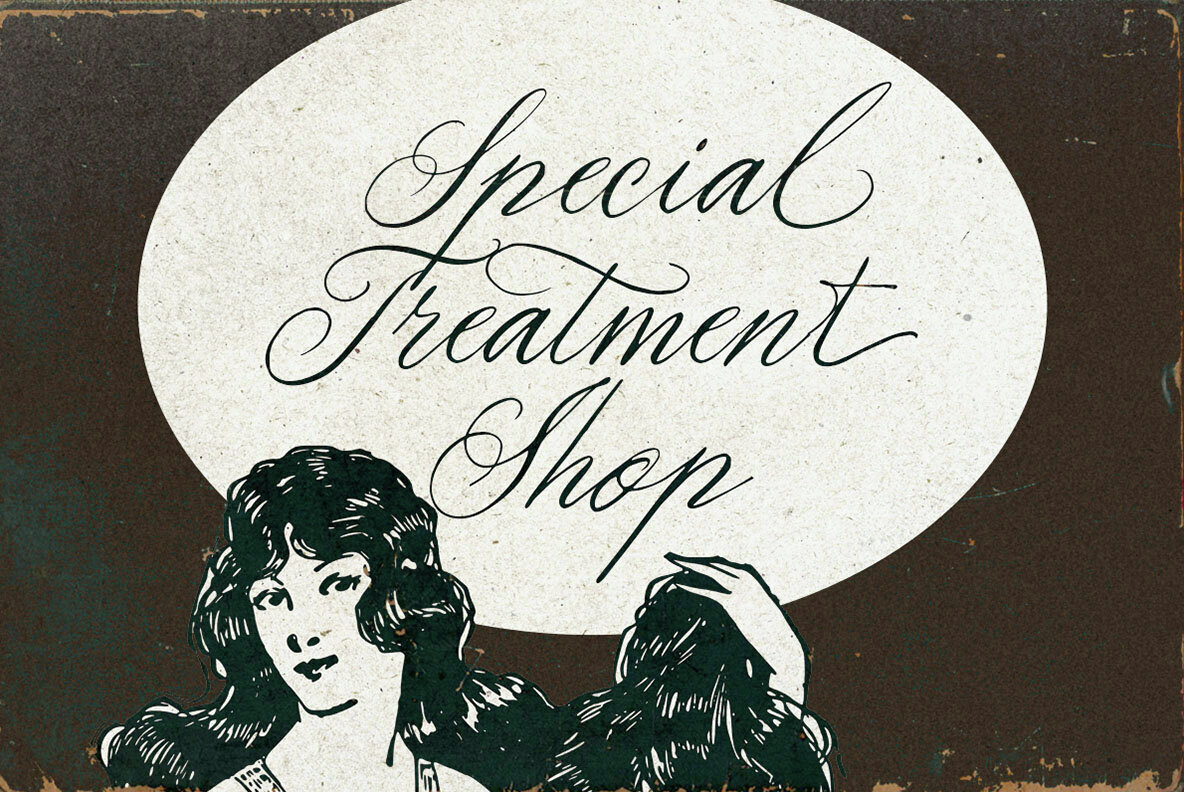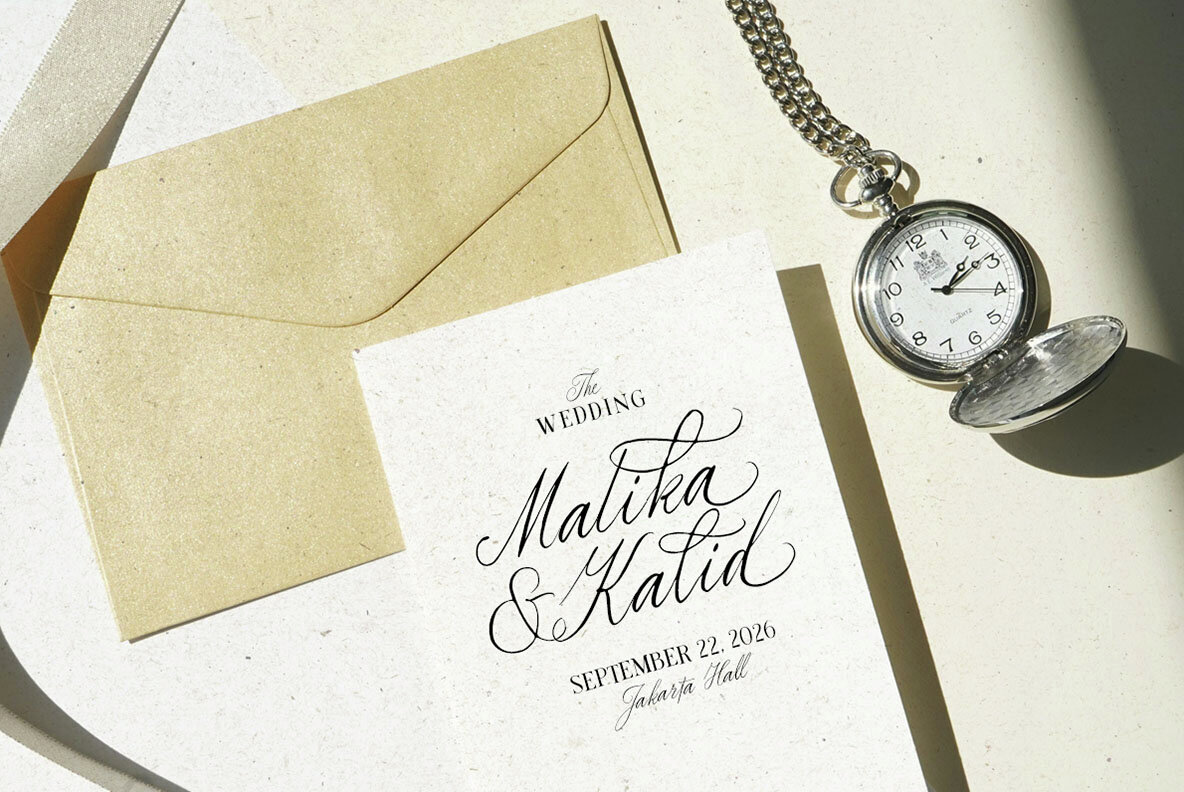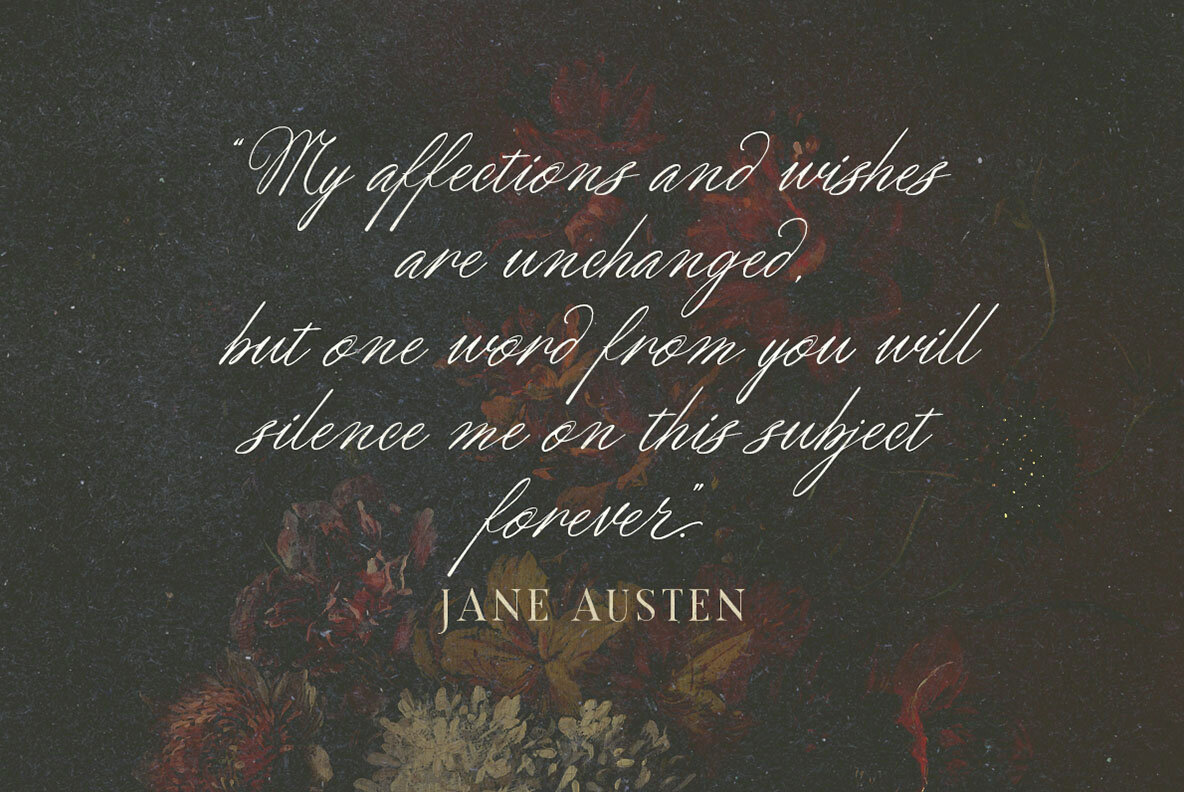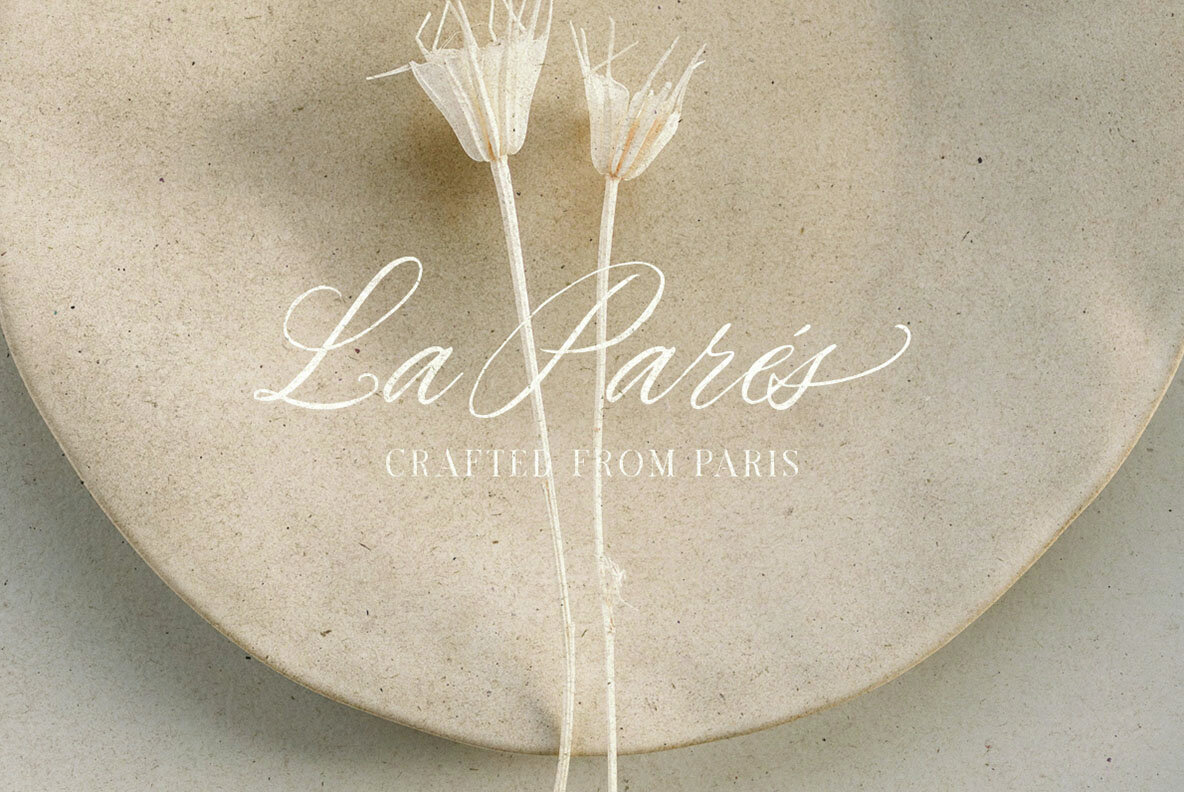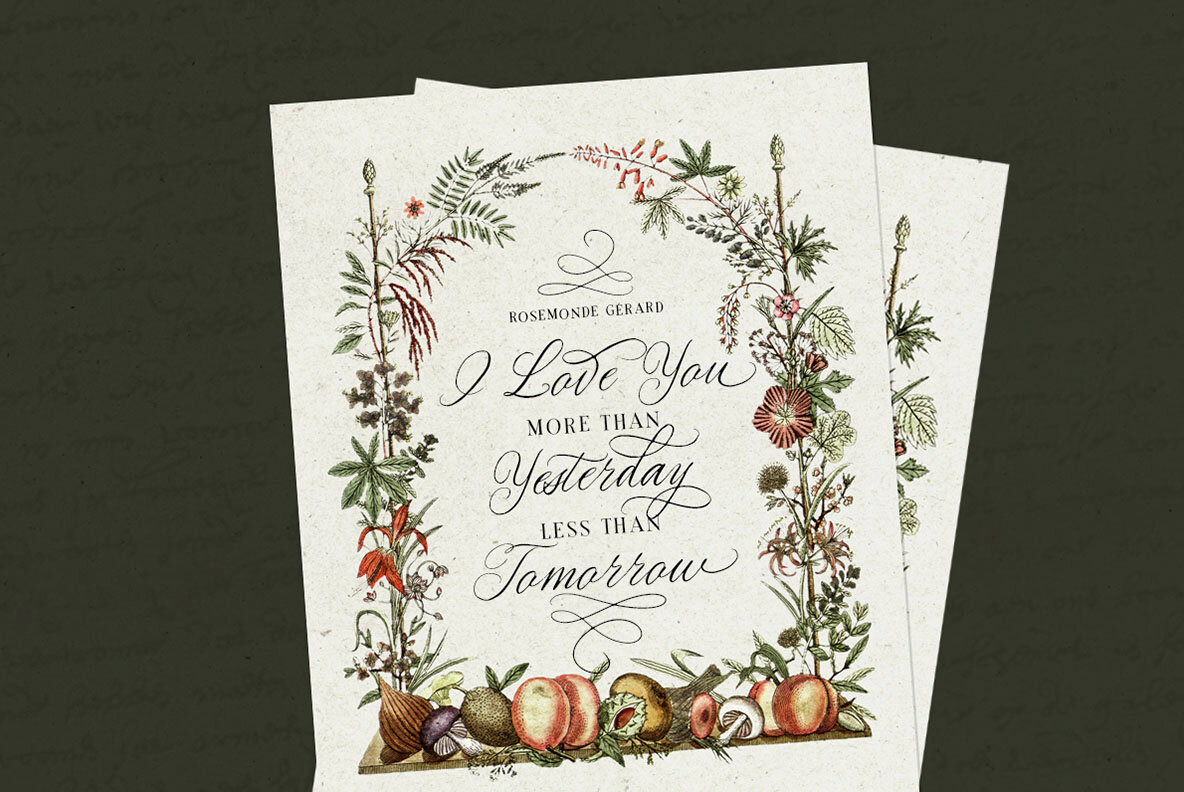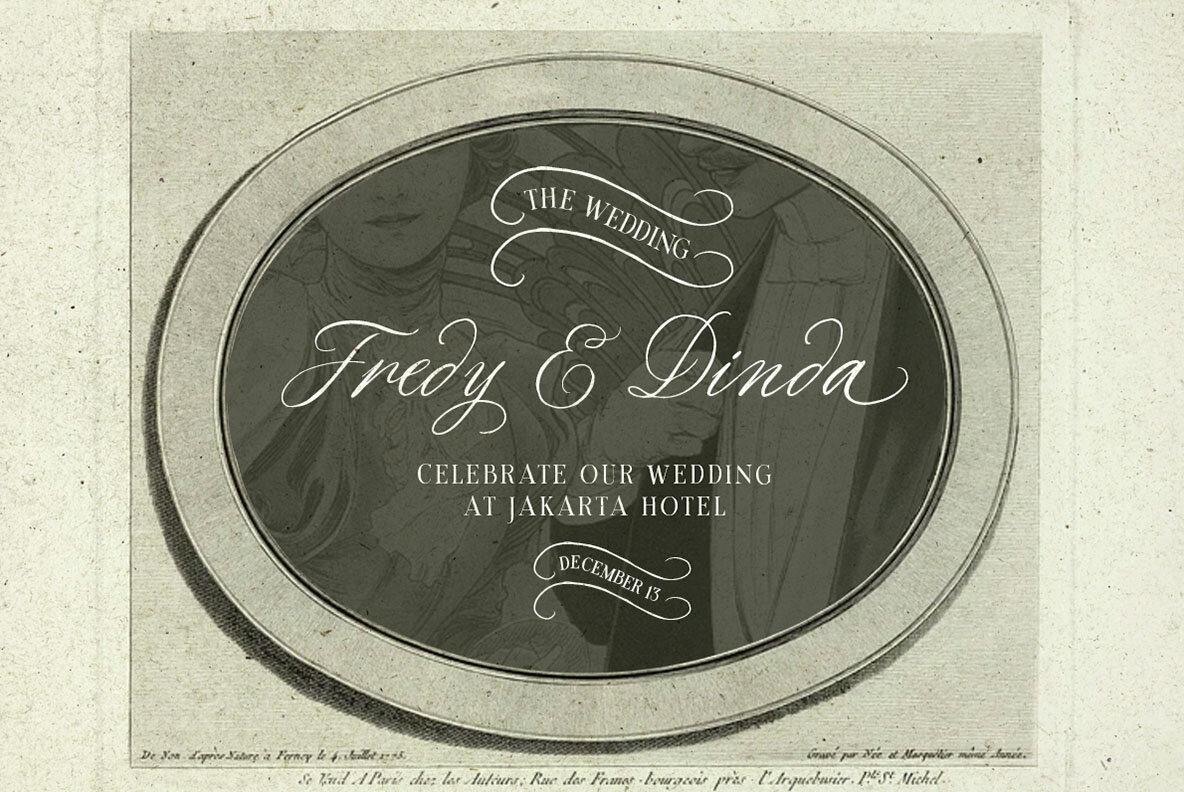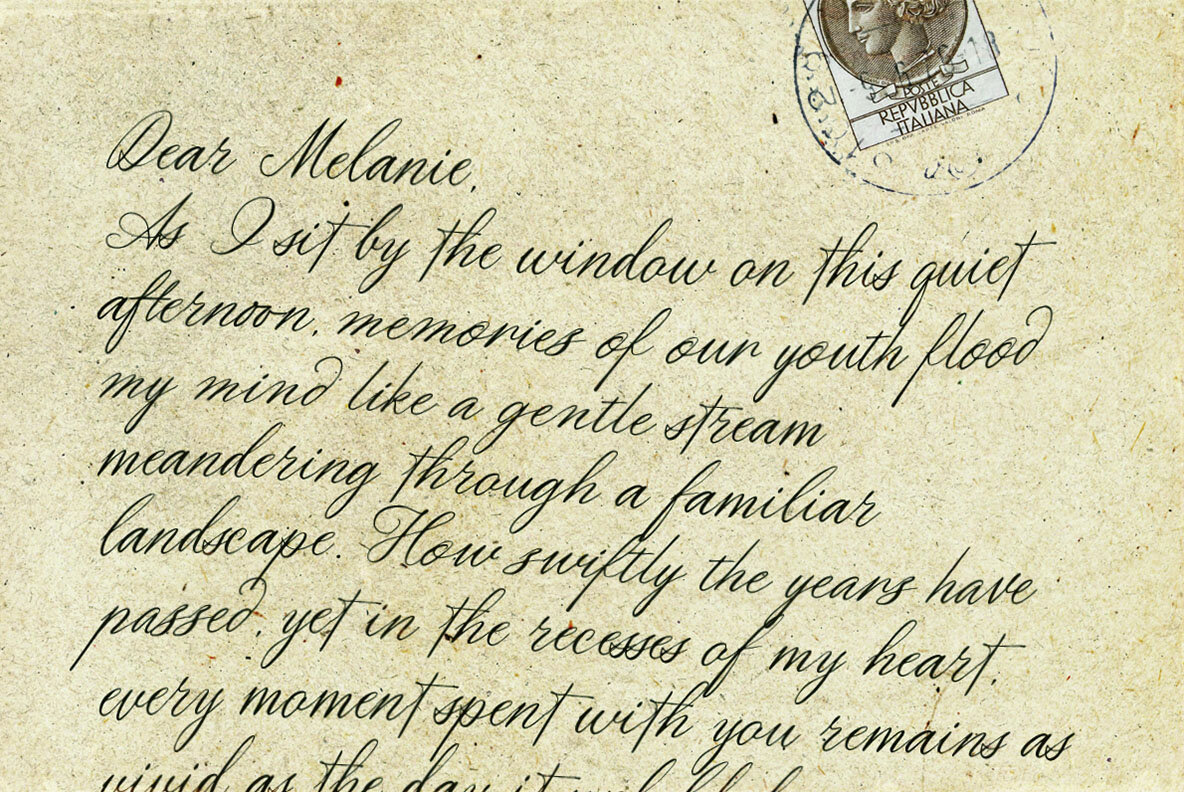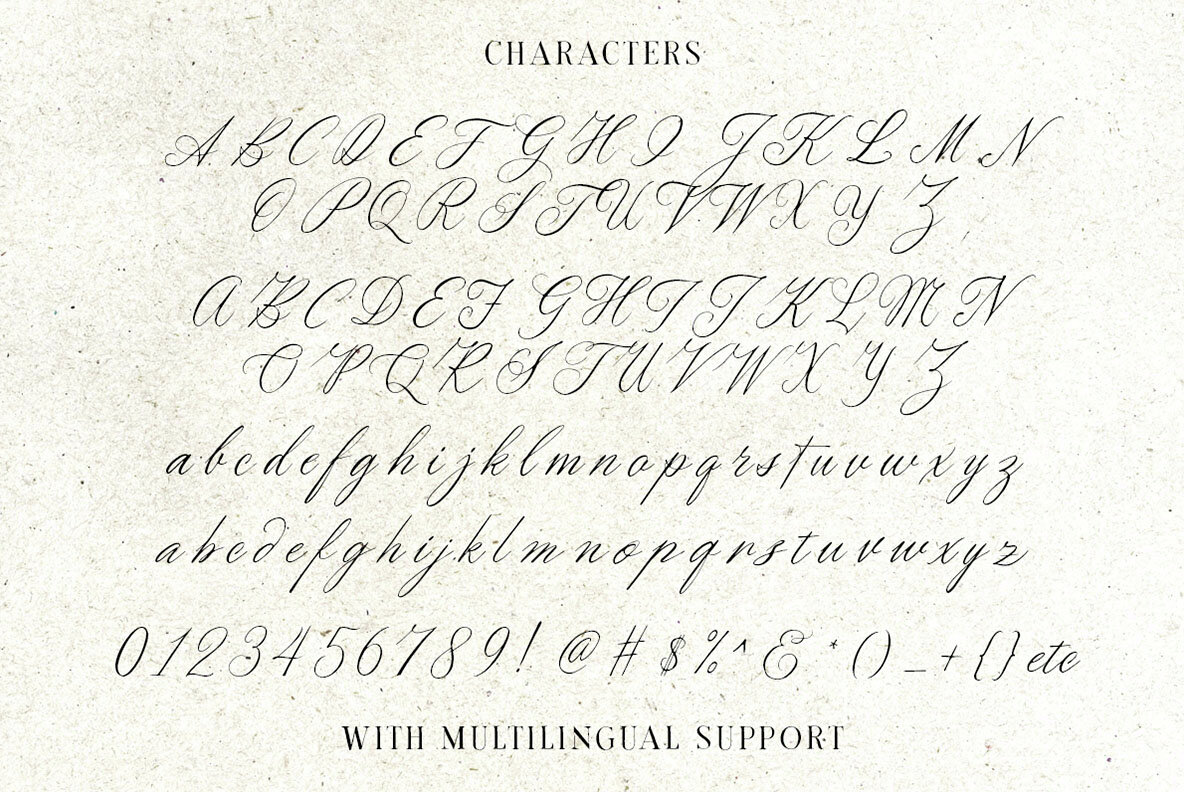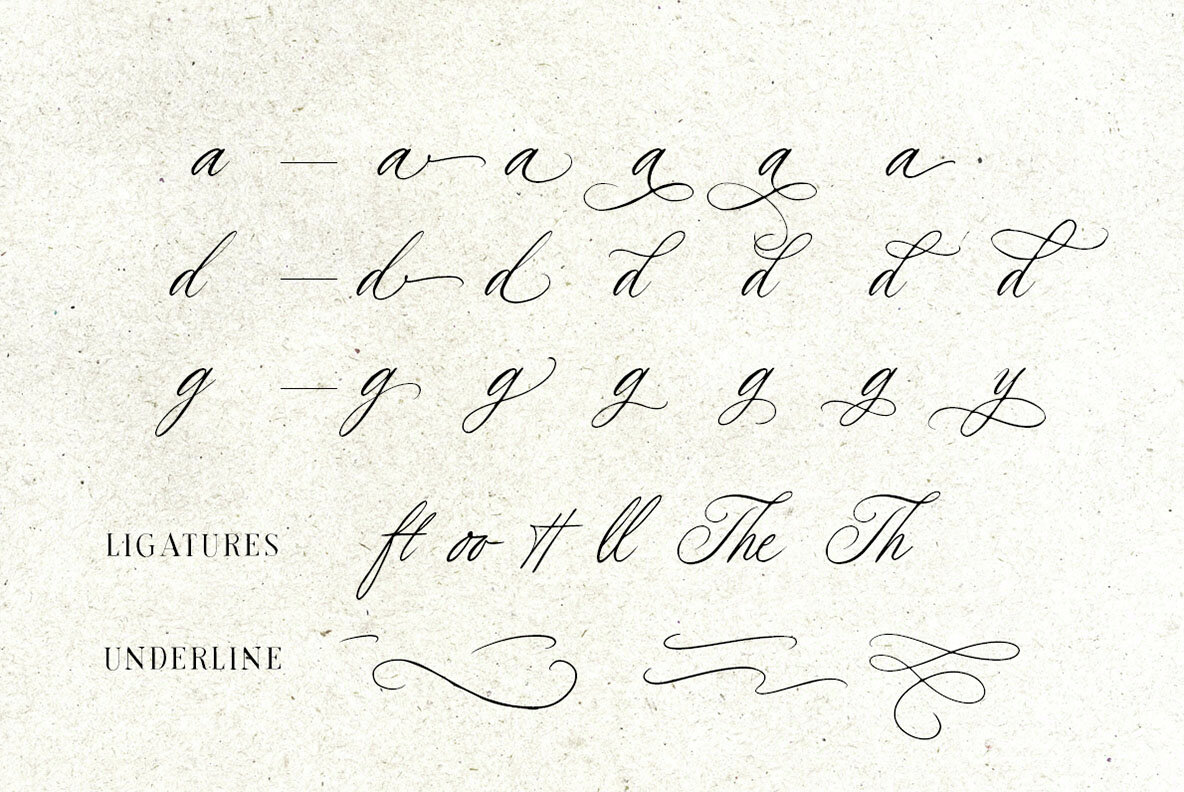
Golden Rouge Font
Golden Rouge Regular
Introducing Golden Rouge – a typeface inspired by vintage script style. With a range of stylistic alternates, ligatures, and swashes, this font offers versatility for creating lettering with a natural, handcrafted feel. Golden Rouge is perfect for applications such as logos, invitations, labels, magazines, books, greeting and wedding cards, packaging, fashion, makeup branding, stationery, novels, and any advertising purpose. Let this font add an elegant, timeless touch to your designs. Features :